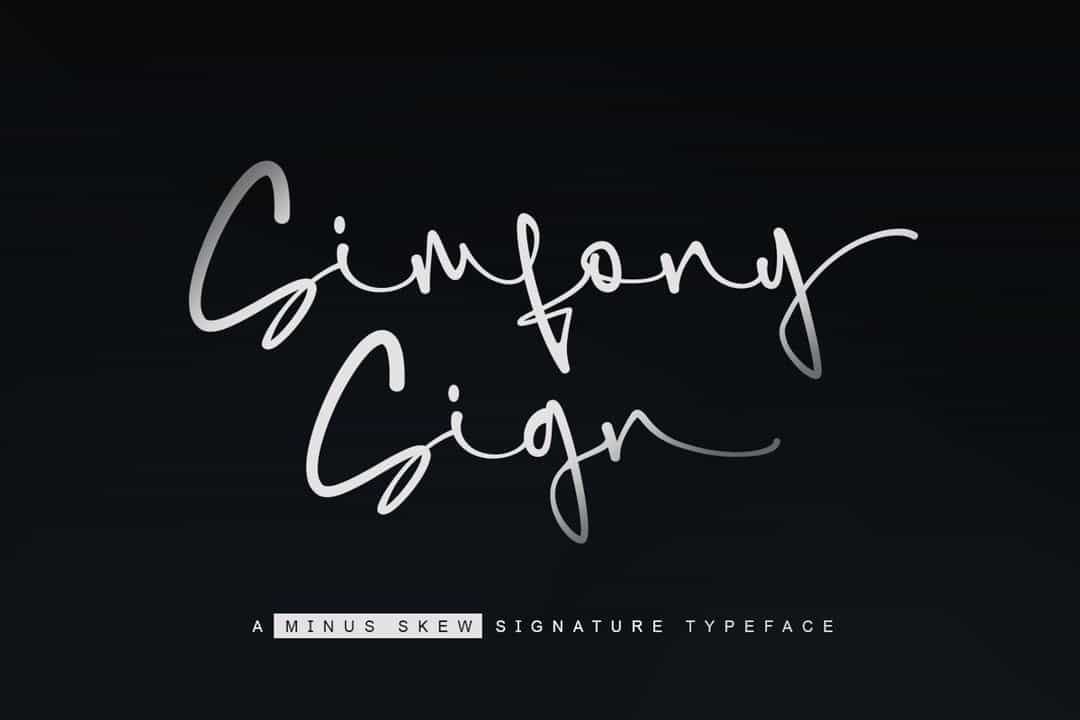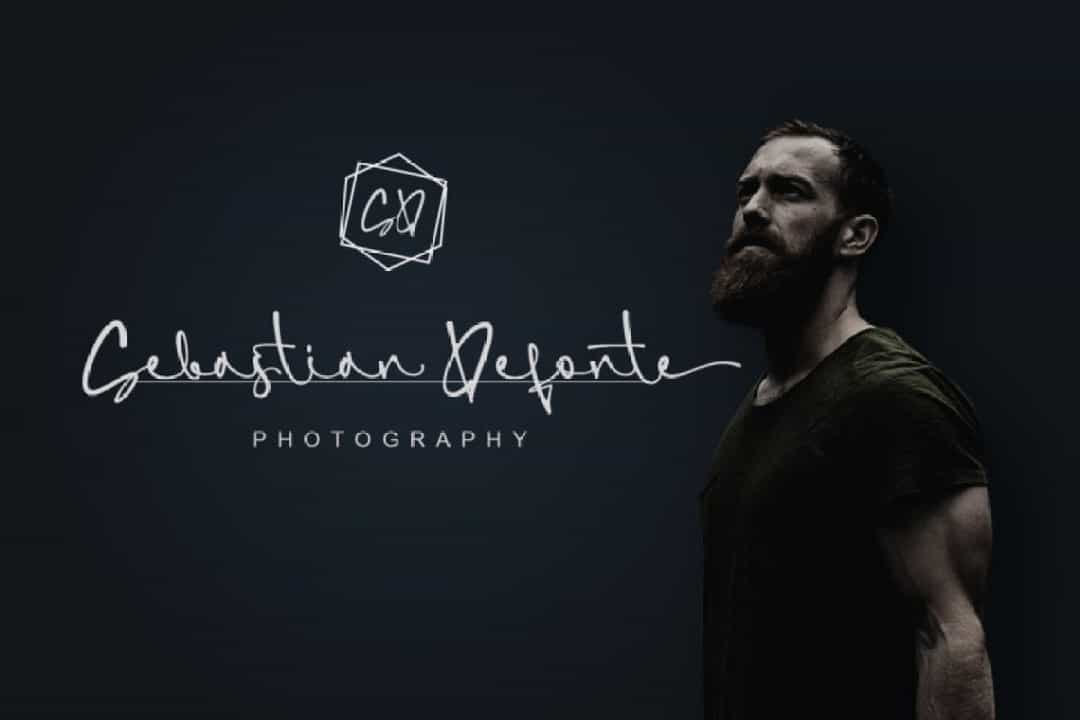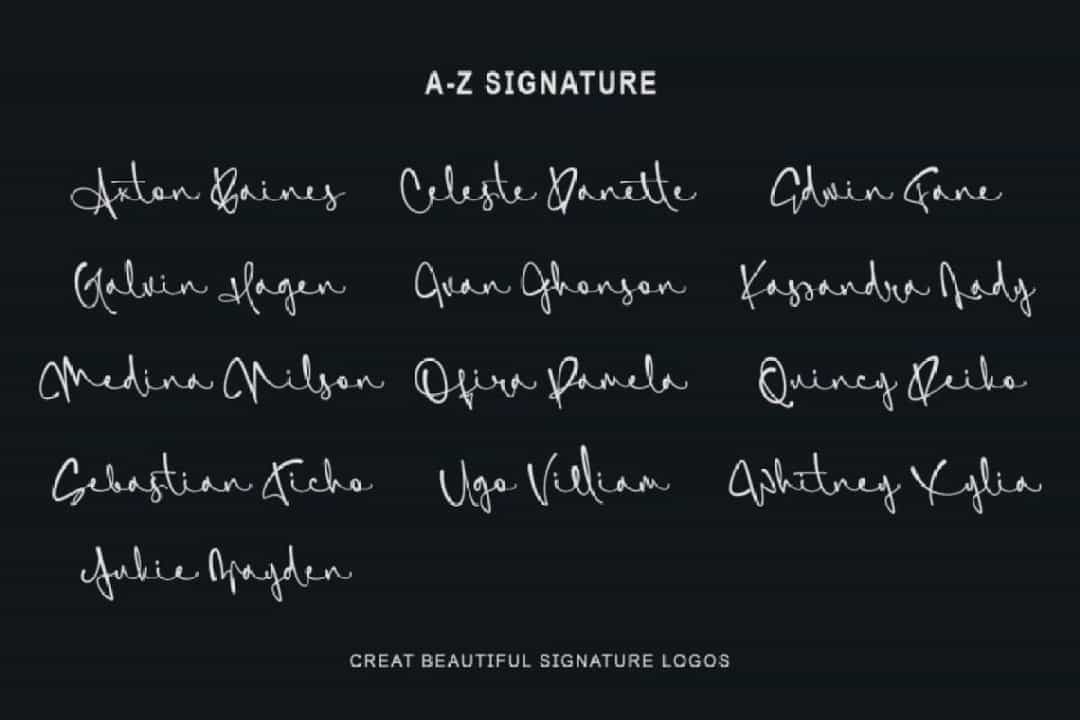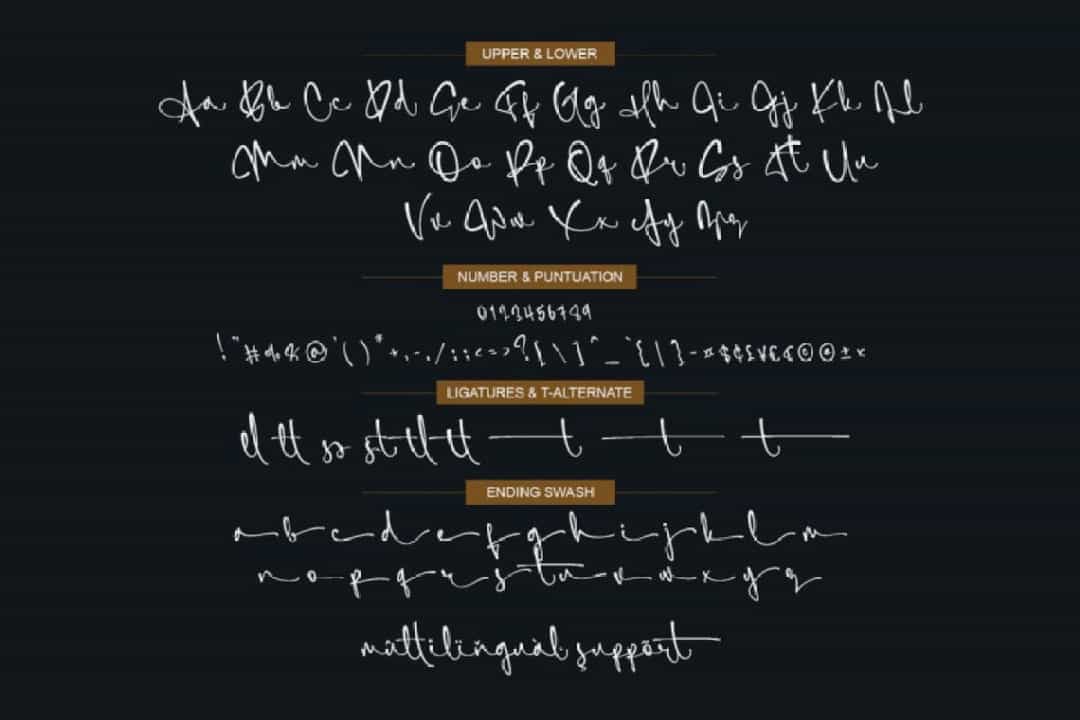
SimfonySign a fashionable and ultra-cool new handwriting script typeface. SimfonySign is the ideal option for fonts to use in your designs in the shape of branding & logos printing media and social media posts, watermarks, or any other work that requires handwriting styles that have a distinct style.